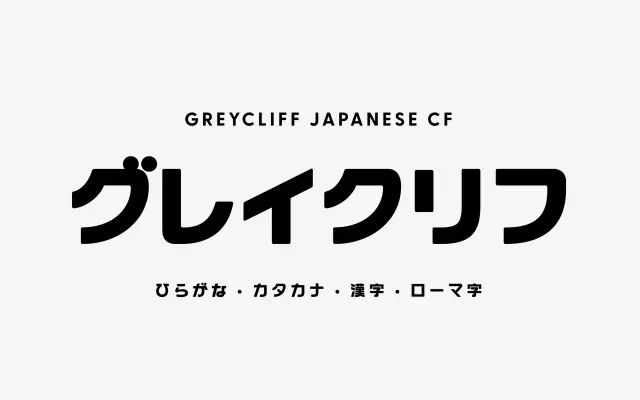
Greycliff Japanese CF
A Japanese-script extension of Greycliff CF, covering hiragana, katakana and kanji across nine weights for dual-language Latin and Japanese setting.
All 2800-plus glyphs were hand-drawn to carry the warm, geometric character of the original Greycliff CF into Japanese script, covering hiragana, katakana, kanji and romaji. Nine weights from Thin to Heavy run consistently across both Latin and Japanese, making it practical for bilingual applications in branding, publishing or interface work. Latin coverage extends to a broad range of European languages including Vietnamese and Filipino.
A geometric sans-serif with warm proportions, extending the original Greycliff CF Latin design into Japanese script, maintaining consistent geometric construction across hiragana, katakana, kanji and romaji.